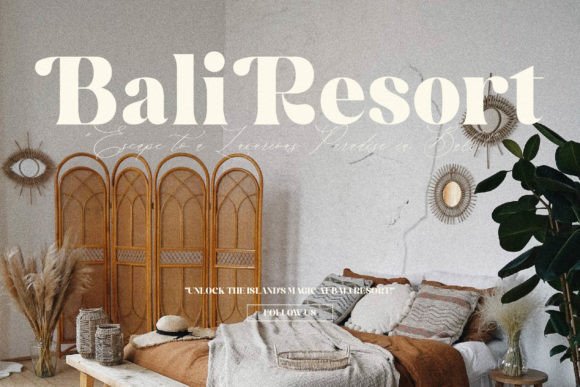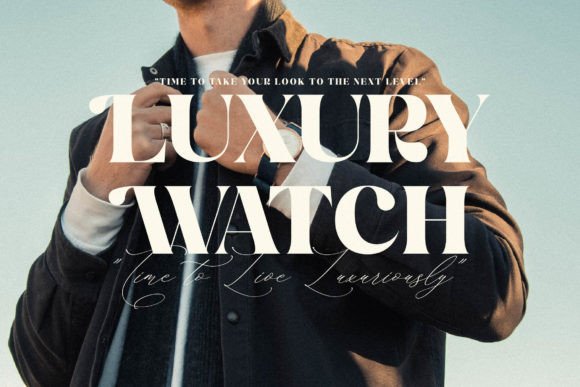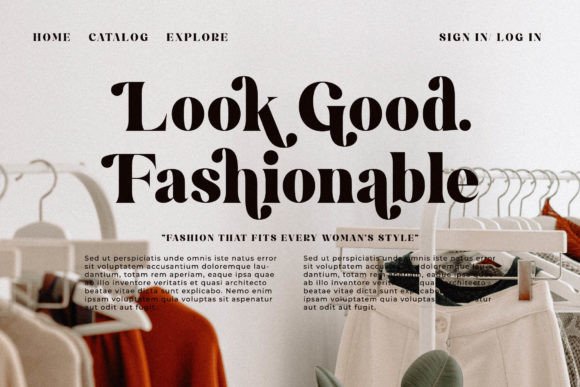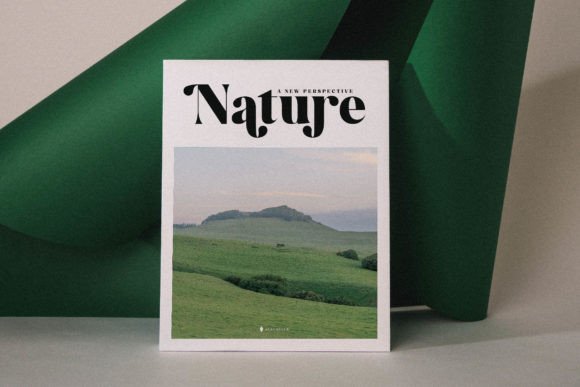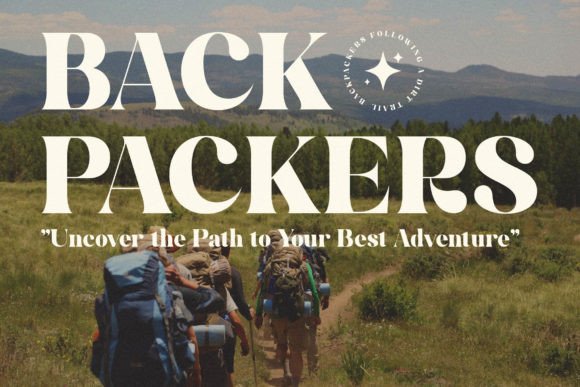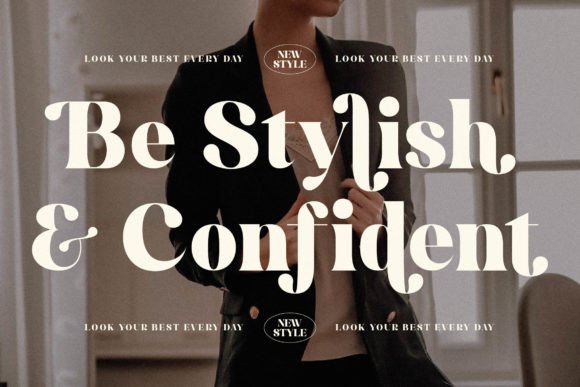
Have you ever stared at a blank page, trying to come up with the perfect font to match your brand’s unique style? I’m sure many designers can relate to this moment of creative frustration. But what if I told you there’s a font that can elevate your design game and make your work stand out from the crowd?
Enter Bridga Goldeni Font, a modern and stylish serif font that’s perfect for creating an elegant and luxurious look. Whether you’re designing a logo for a high-end fashion brand or a magazine that showcases the latest trends, this typeface is sure to impress. What makes Bridga Goldeni Font so valuable for designers is its versatility and unique appearance, making it a must-have in any design arsenal.
Bridga Goldeni Font Key Features
- Unique Characteristics: The Bridga Goldeni Font features a distinctive, elegant script style with intricate details and flourishes, making it suitable for creative and artistic applications.
- Font Style: The font comes in two styles: Regular and Bold, providing options for designers to create contrast and emphasis in their designs.
Bridga Goldeni Font Review
As a designer, I was excited to try out the Bridga Goldeni font. Here’s my honest review.
- The Bridga Goldeni font has a unique, elegant touch that makes it perfect for high-end branding and luxury designs.
- The font’s golden, vintage vibe is great for creating a sense of sophistication and refinement.
- The Bridga Goldeni font may not be the best choice for modern, minimalist designs. Its ornate details may come across as too flashy.
Overall, I think the Bridga Goldeni font is a solid choice for designers who want to add a touch of luxury and sophistication to their designs. While it may not be the best fit for every project, it’s definitely worth considering for high-end branding and other design applications.
The Bridga Goldeni font is ideal for:
- Typography-based art and graphics
For the most effective use of the Bridga Goldeni font, consider the following tips:
- Pair it with a clean and simple background
- Use it for headings and titles
- Experiment with different font sizes and styles